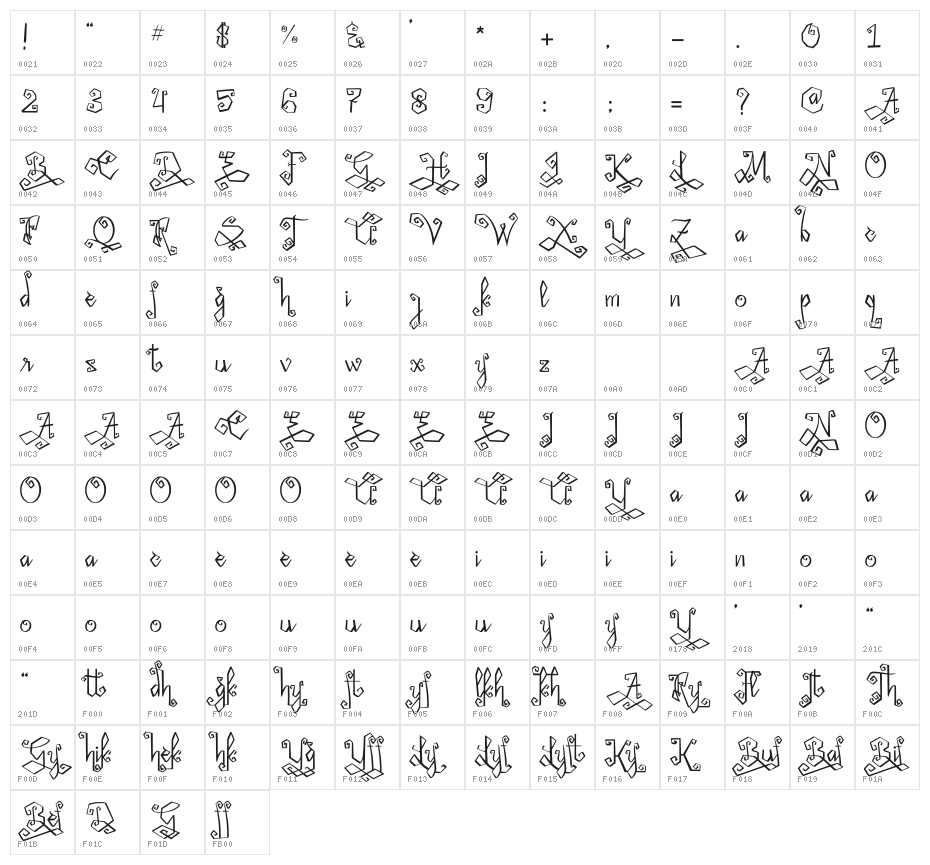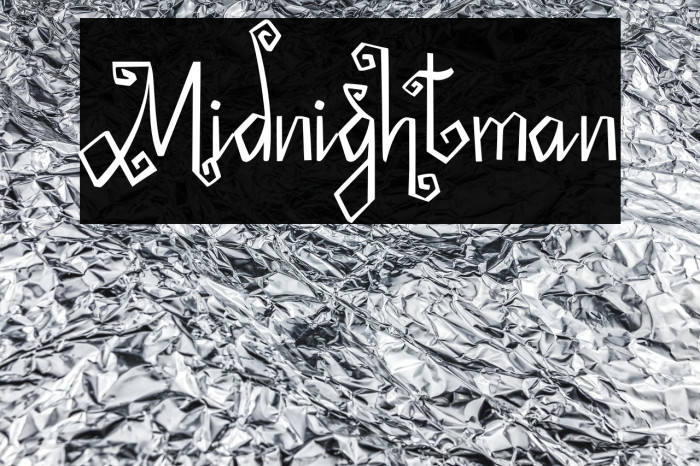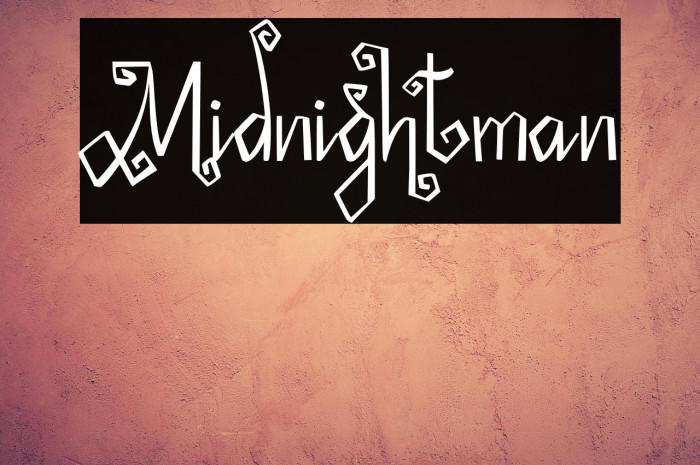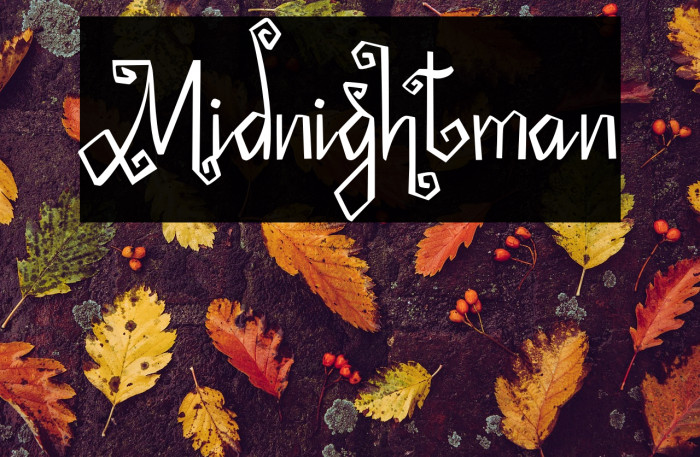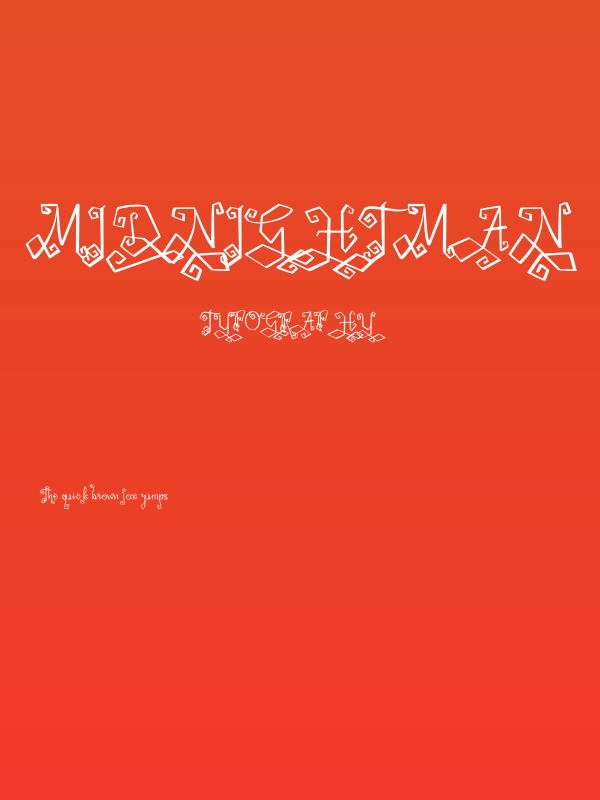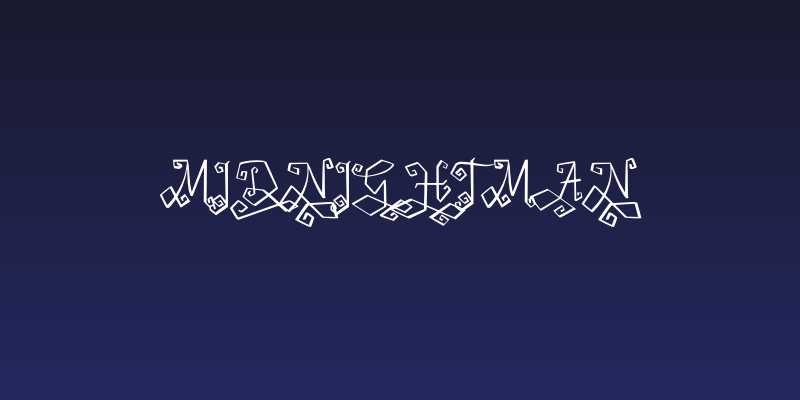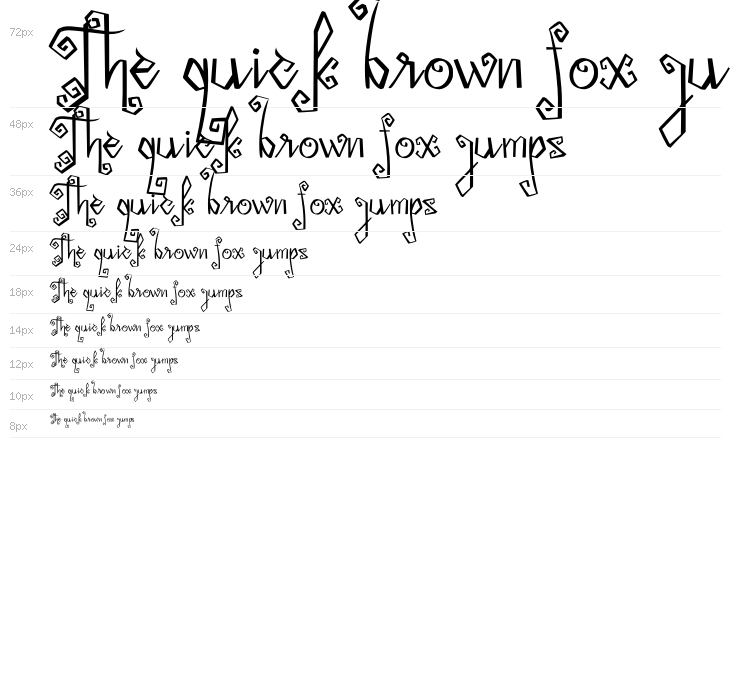
Midnightman Font
Midnightman Description
This font features a highly decorative and whimsical style, characterized by its intricate and angular design. Each letter is uniquely crafted with geometric shapes and sharp edges, giving it a playful yet edgy appearance. The uppercase letters are particularly elaborate, with additional flourishes and curls that add to the overall complexity. The lowercase letters maintain a similar style but are slightly more subdued, ensuring readability. Numbers and special characters follow the same design principles, making the entire set cohesive. This font is ideal for creative projects that require a bold and artistic touch.
| Use Case | Headlines, Artistic branding, Posters |
| Proposed Projects | Ideal for creative projects such as posters, album covers, and artistic branding that require a bold and unique aesthetic. |